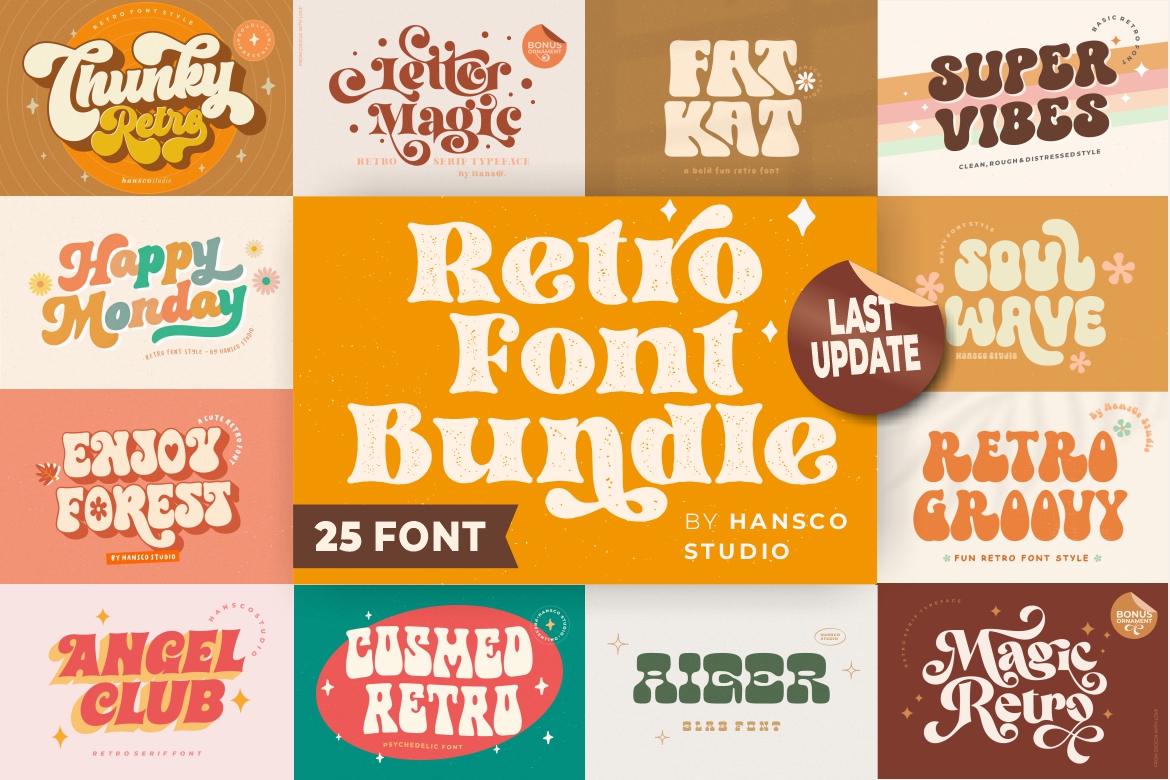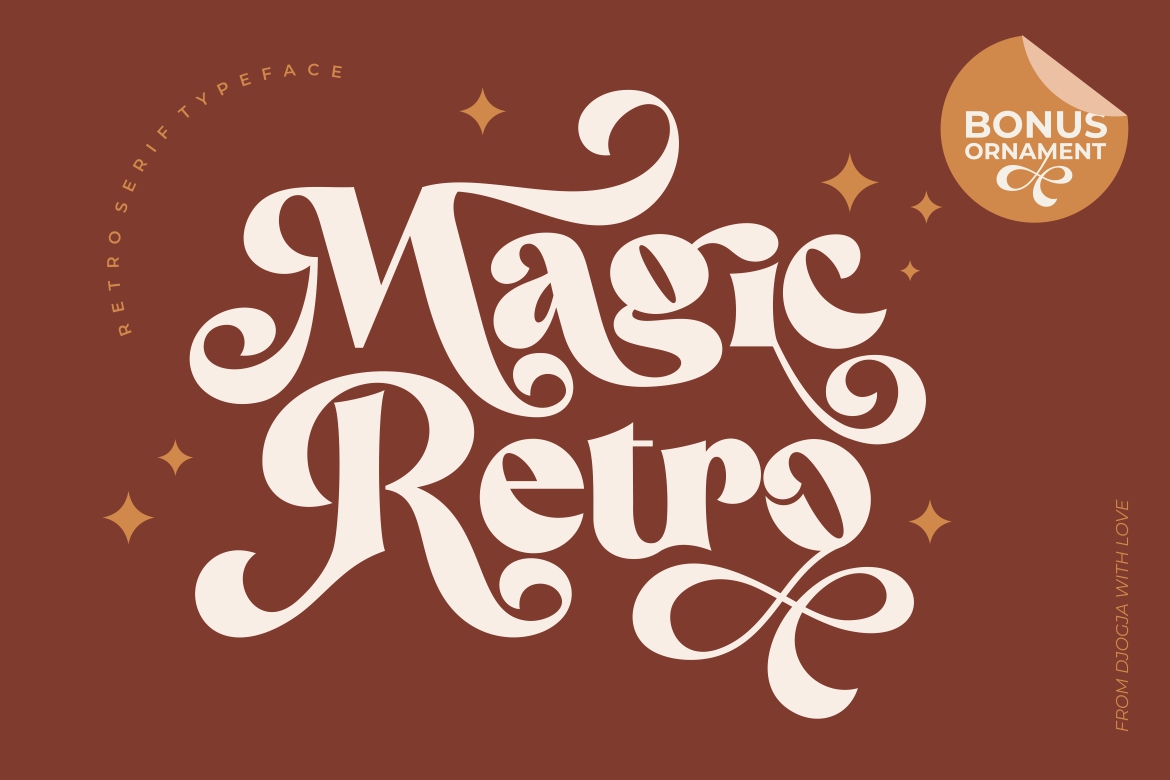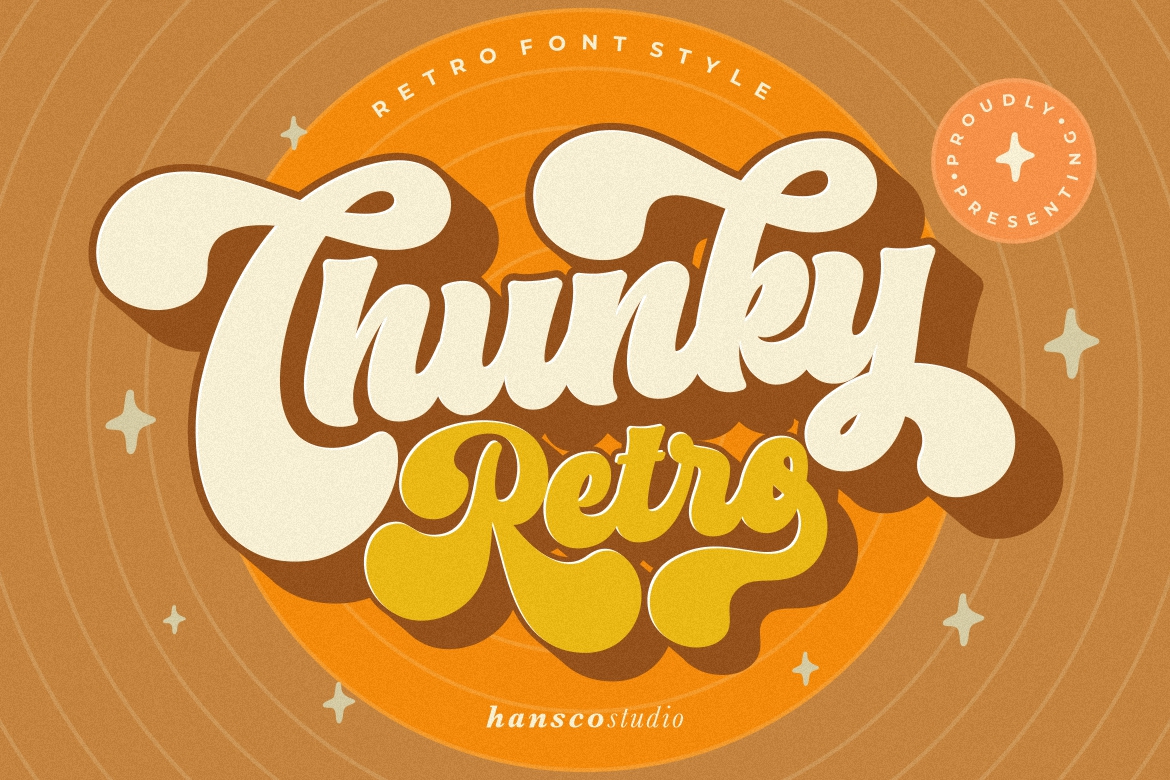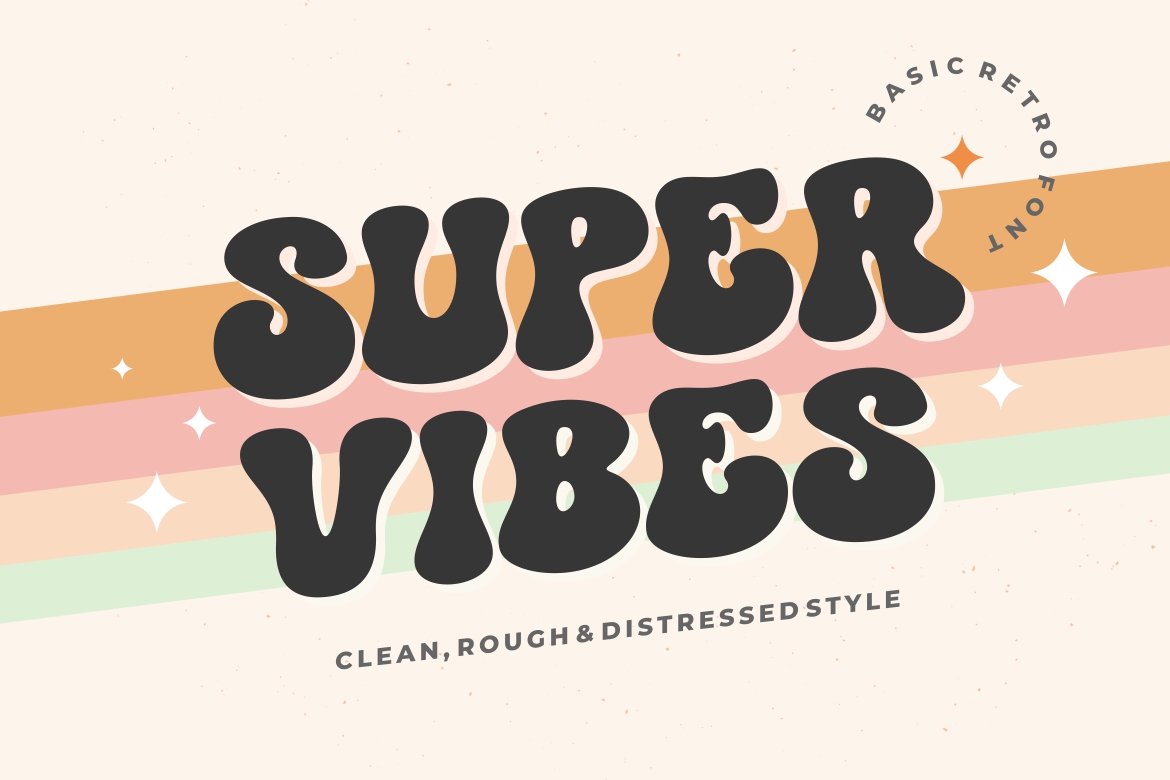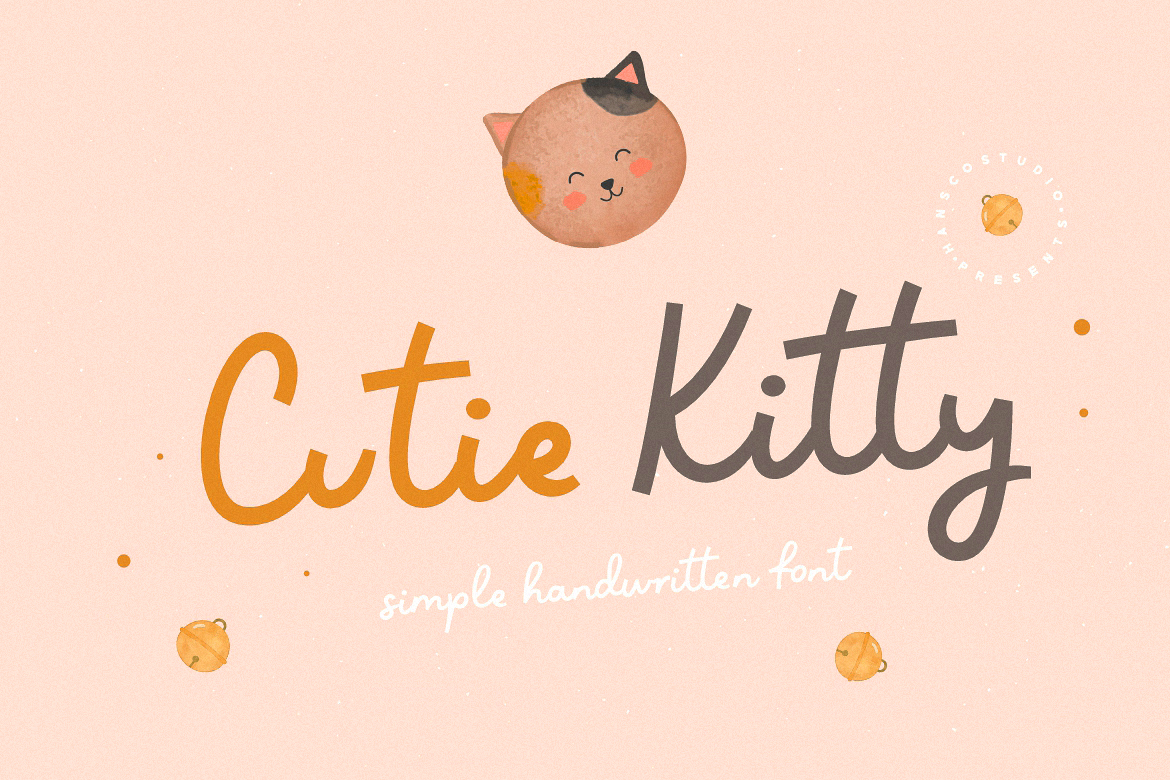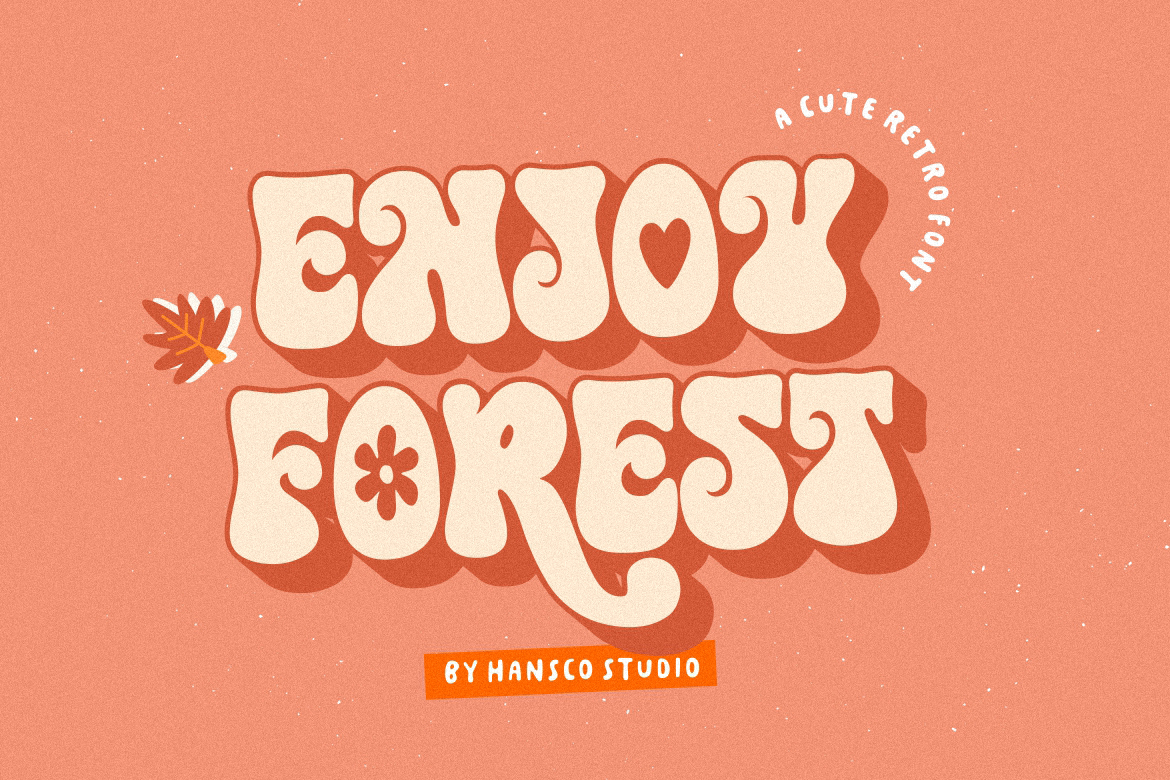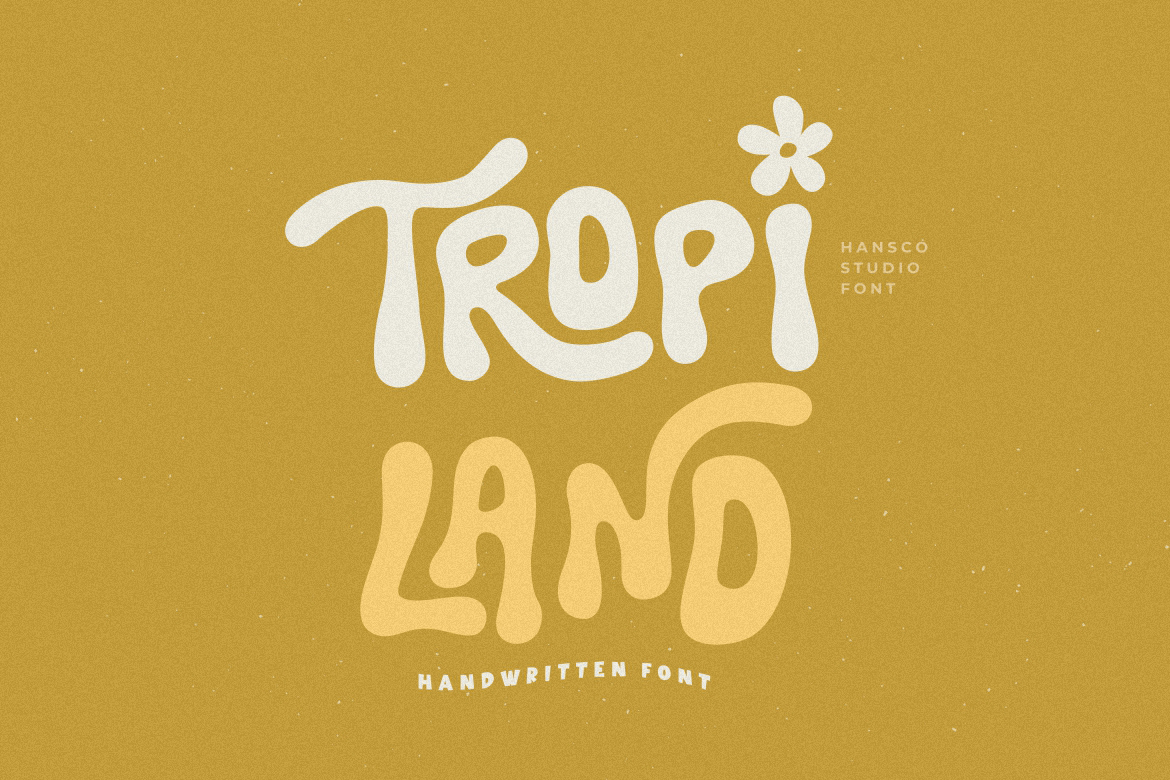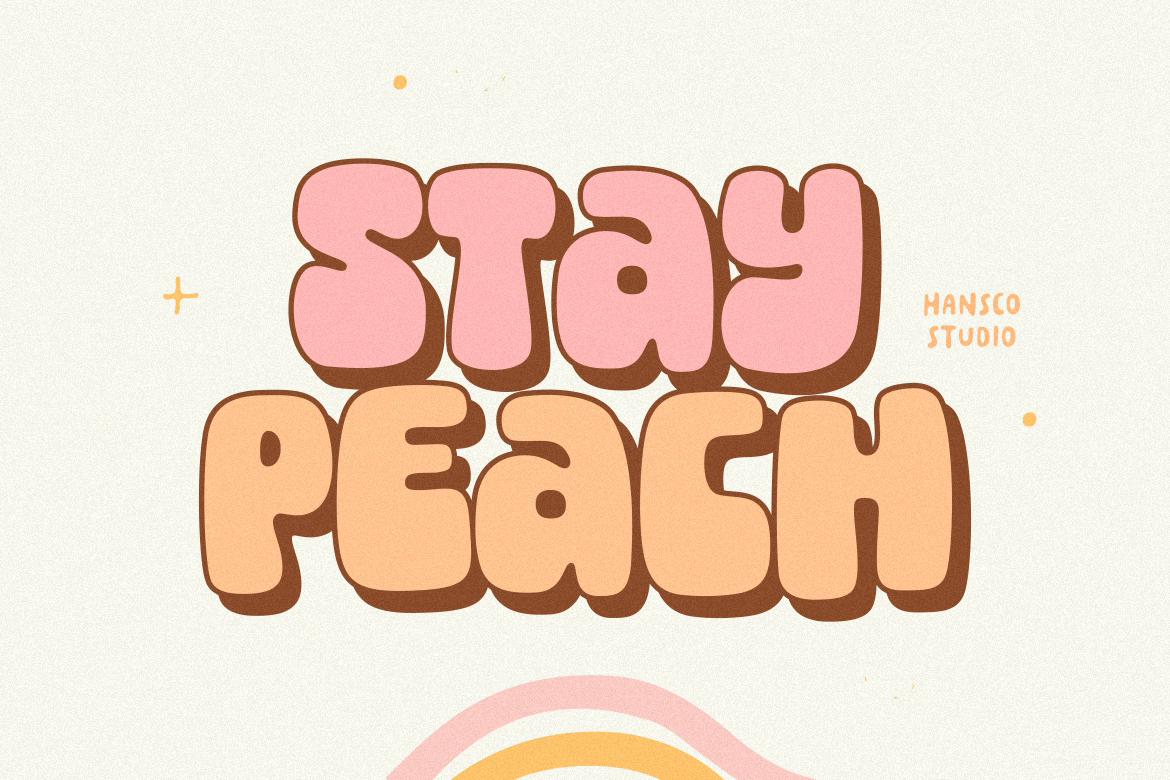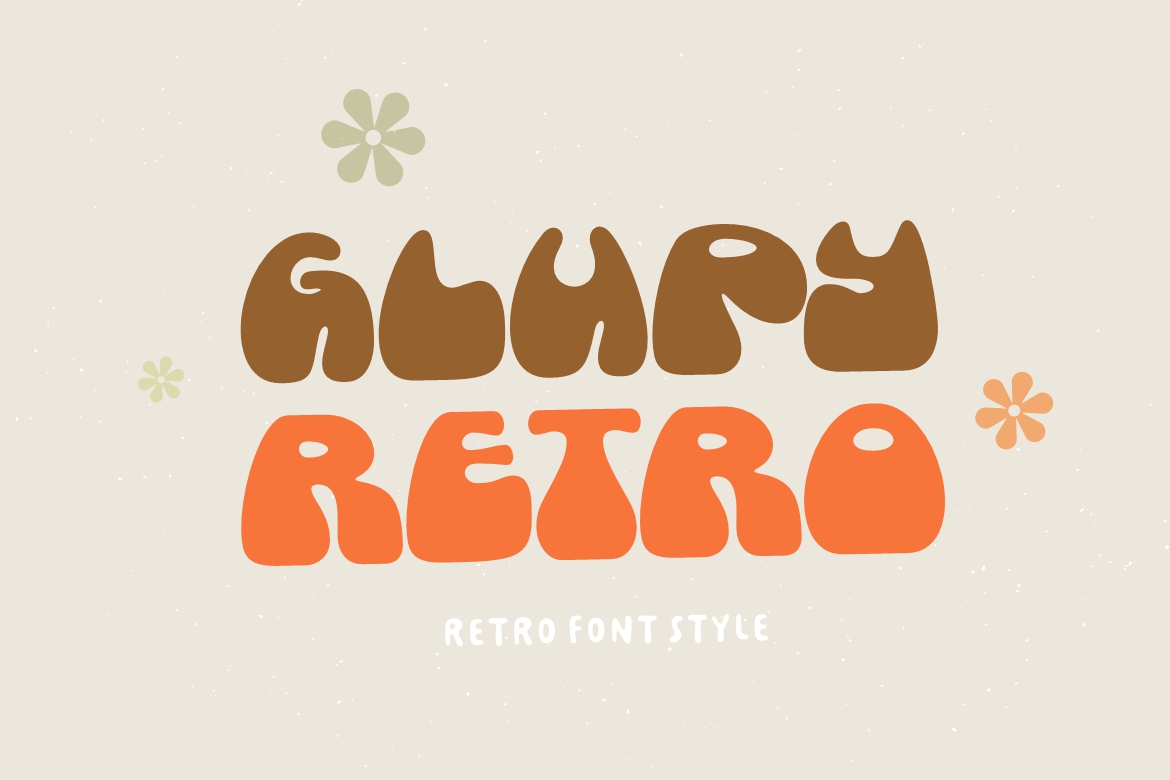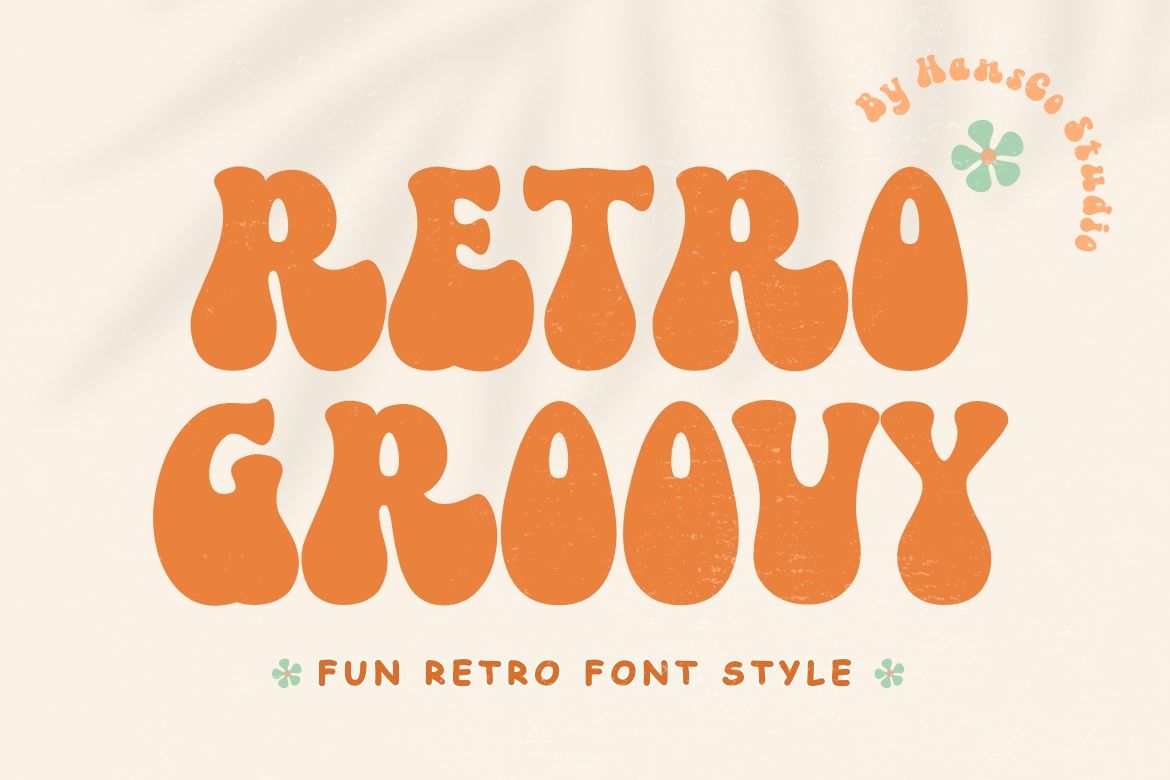
Create Charming Designs with This Cute Retro Fonts Bundle from HansCo Studio!
Lively, funky, and cheerful, that’s what you get from retro designs, including in fonts. Downloading a retro font bundle gives you numerous ideas to add charms to your designs. From funky lines and bold strokes to warm, bright hues, retro fonts will make any design stand out.
Why stick with one if you can get multiple fonts for your old-school inspiration? Here are recommendations for retro fonts awesome designs deserve from HansCo Studio!
1. Chunky Retro Font
This font features a stylish calligraphy style, perfect for creating fresh and fun design elements. This is a perfect font for making labels, font-based logos, and titles of musical albums. Chunky Retro has a distinctive rounded shape with strong 60’s and 70’s influences.
The font’s bold strokes have a unique varying thickness that adds character to any text or logo. Its uppercase and lowercase alternates have rounded, exaggerated swashes for extra groovy elements. The font also comes with a shadow effect to add depth to your font-based design.
Chunky Retro comes with all the standard uppercases, lowercases, ligatures, and alternates. The font pack also supports multilingual designs. A perfect option for fresh, groovy designs.
2. Letter Magic Font
Need a little font retro magic in your design? We’ve got you covered! Letter Magic is a retro serif font with a little touch of classical vintage in its strokes and angled corners. Instead of a total retro comeback, Letter Magic adds a touch of magic and charm to your designs. Perfect for adding fantastic air into a design, logo, label, and many more.
Letter Magic has bold strokes with slightly concave tops and angled corners, yet with rounded, exaggerated swashes. The combination creates a subtle restraint and elegance in the retro typeface. Ideal if you love something between the 60s or 70s style retro and classical vintage design.
Letter Magic comes with your standard uppercase, lowercase, punctuation, and multilingual support. The font pack also has several variations of ligatures, alternates, and swashes to make your designs more colorful. It’s a great addition to this cute retro font bundle.
3. Fat Kat Font
Looking for a funky sans-serif typeface? Fat Kat offers a font cool charm through its modern-retro design. This bold sans-serif font has varying thicknesses in its strokes, making each character look like a puzzle piece. Definitely a fun addition to your design portfolio.
Fat Kat has bold strokes, yet with alternating thickness that adds a unique characteristic. All the uppercase and lowercase have similar heights, adding a touch of cuteness to the design. Since Fat Kat is bold, with funky design elements and similar heights between characters, this font is better used as a logo, label, or social media campaign.
4. Super Vibes Font
This type adds fun and hip to your retro-inspired designs, thanks to its alternating thickness and rounded edges. It makes your design cheerful without looking childish, perfect for designing bags, t-shirts, mugs, banners, ads, and many more.
This bold display font has a subtle quirkiness from its alternating thickness and rounded, slightly engorged edges. Super Vibes also comes with a distressed effect, perfect for adding variations to your design. You can easily create a label, font-based logo, or brand identity with this font.
Super Vibes comes with standard characters and punctuations, two types of distressed effects (Regular and Stamp), and multiple glyphs. It’s a cute, fun addition to your retro font bundle.
5. Happy Monday Font
Fun with a touch of elegance, Happy Monday combines the groovy element of the 60s and 70s with a little calligraphy influence. It is a perfect font for adding a cheerful, stylish touch to your design without making it too playful.
Happy Monday has bold and consistent strokes, adding an element of restraint to an otherwise fun, retro design. The rounded edges make it modern, and you get options for curved, slightly exaggerated swashes for more creative looks.
Happy Monday is perfect for designing fashion items, greeting cards or messages, business banners, headers, and many more. The font pack comes with all the standard punctuations and characters, including uppercase and lowercase. A great font to expand your retro-inspired design portfolio.
6. Soul Wave Font
Fun, bold, and playful, Soul Wave instantly makes any design eye-catching. This bold display font adds a bouncy spirit to your designs and makes them more special. The unique form and shape also make it ideal for font-based logos, banners, labels, business banners or headers, and business cards.